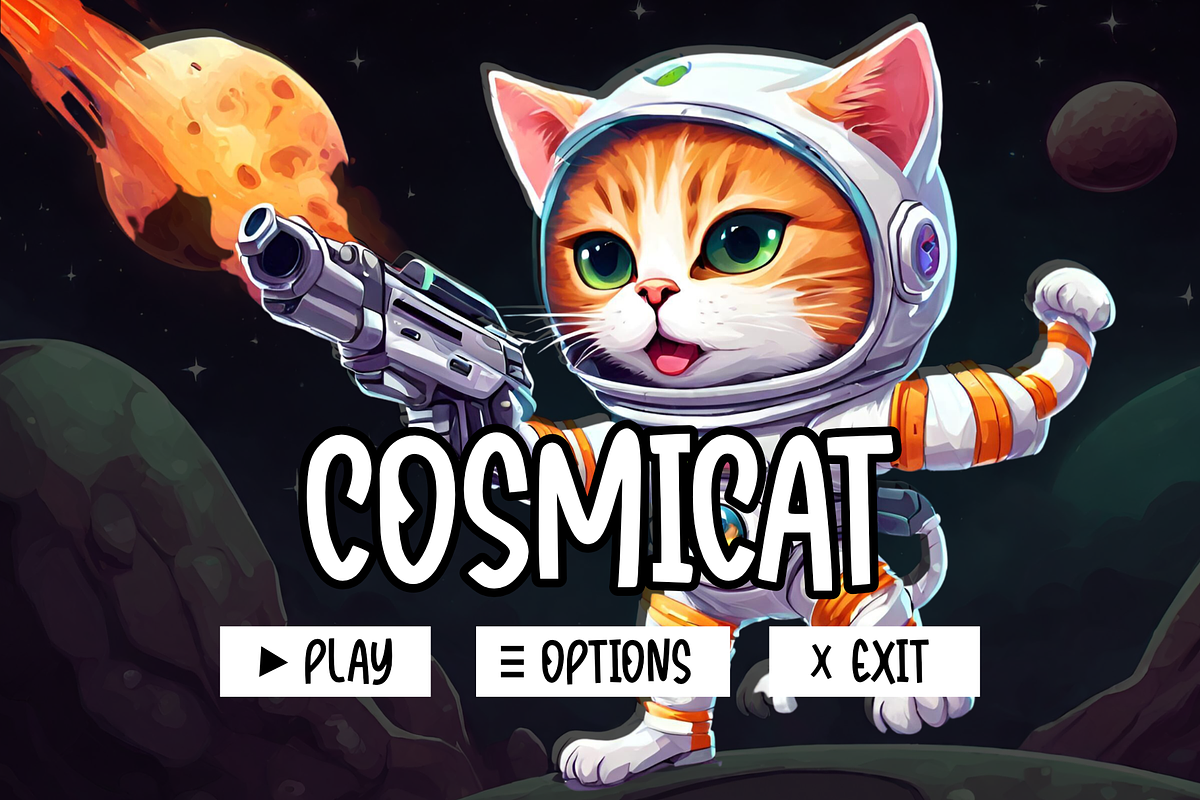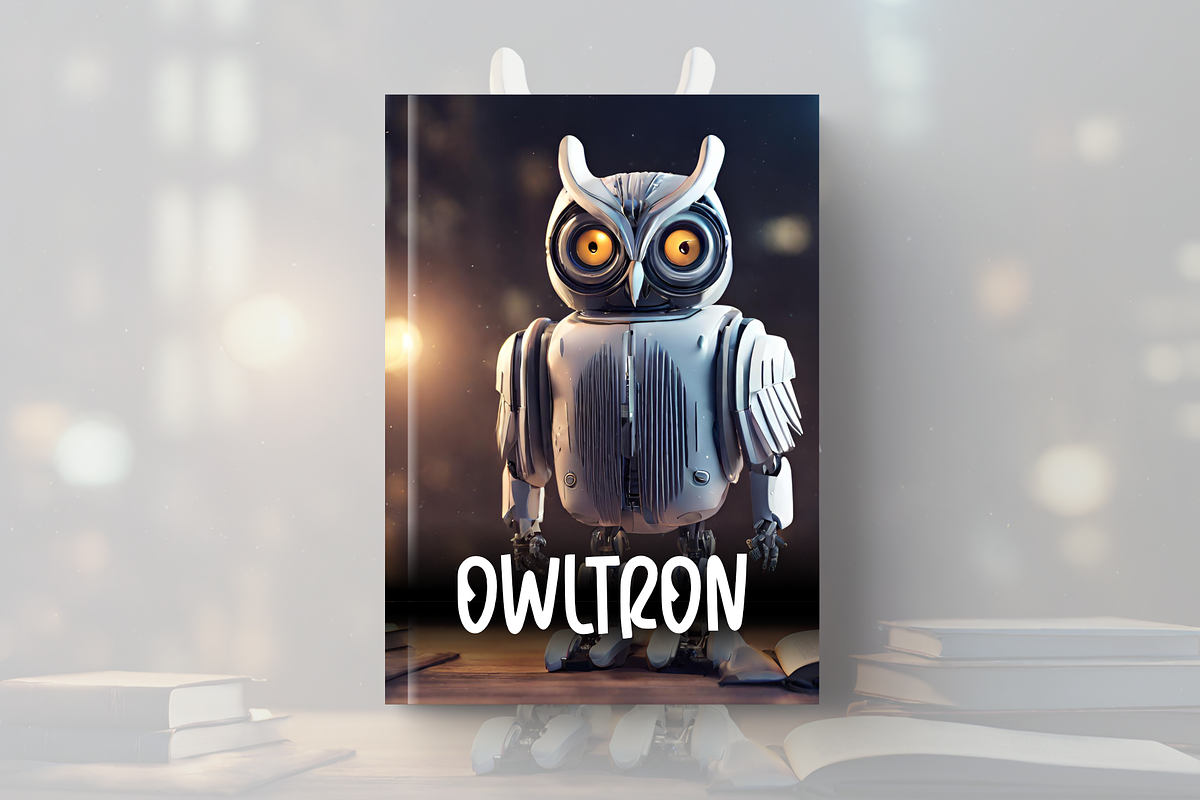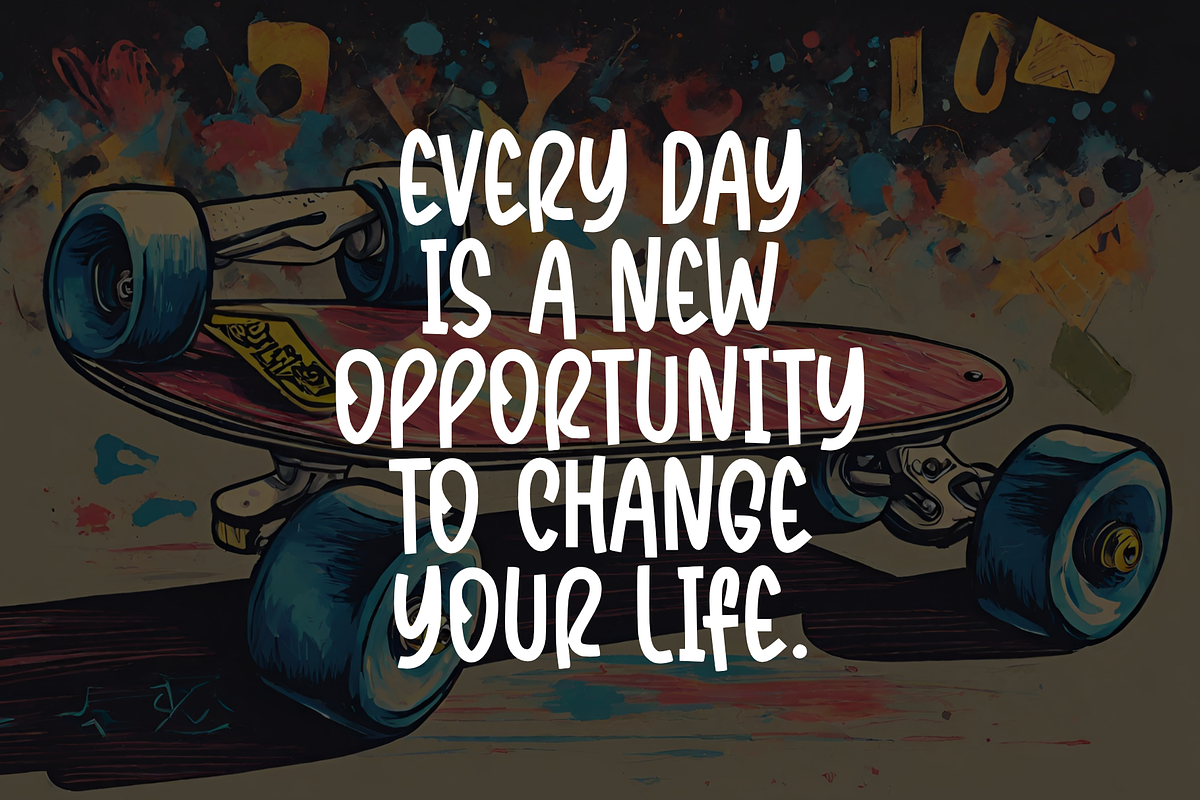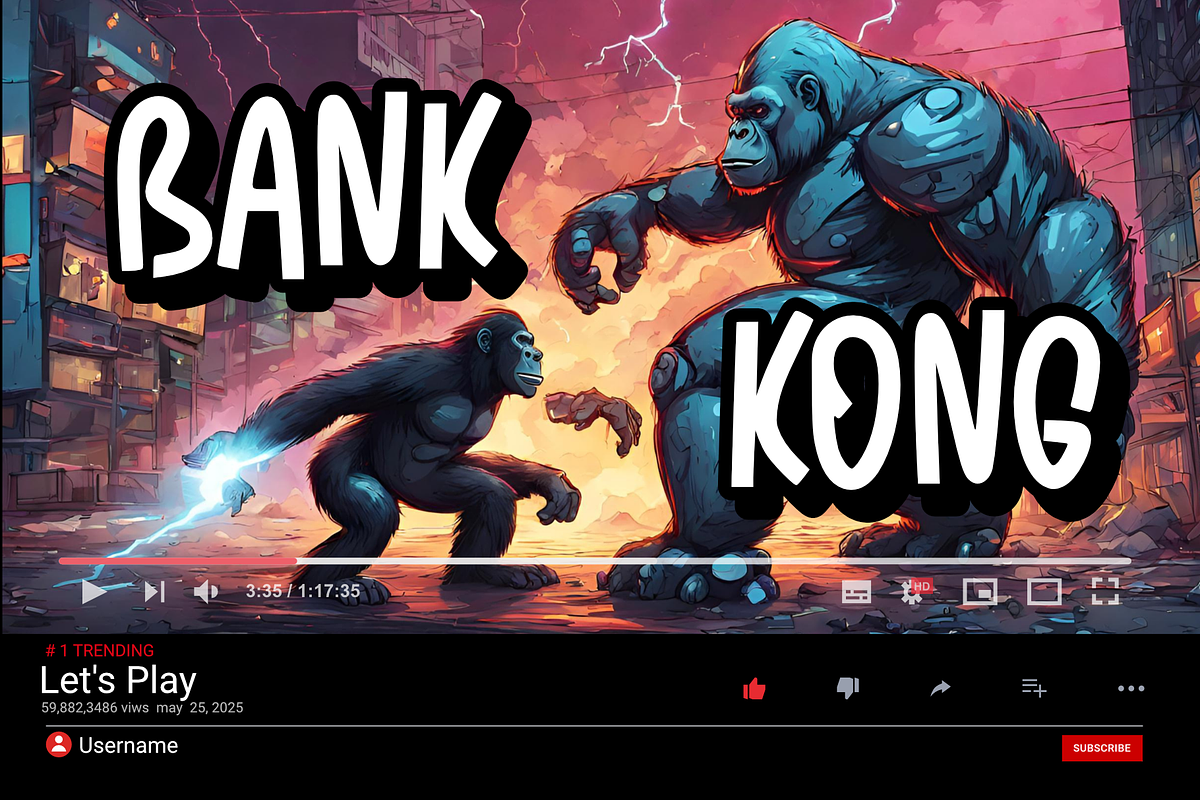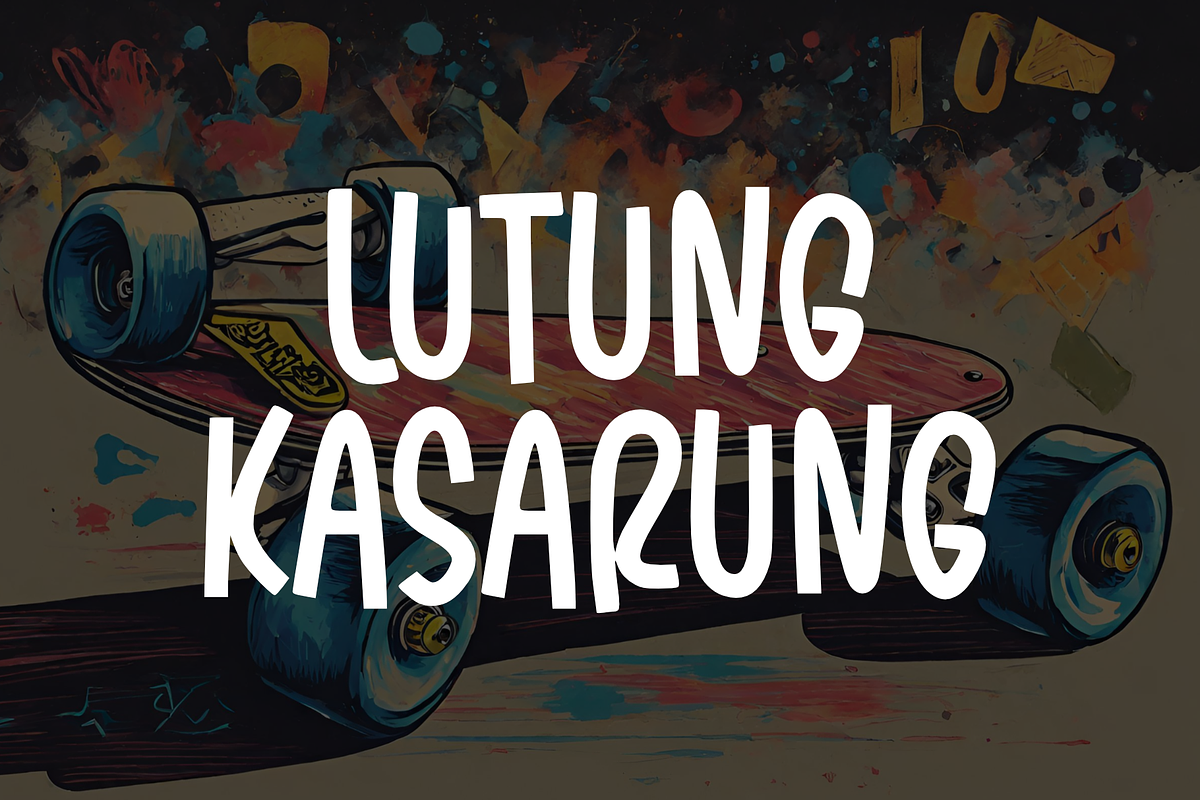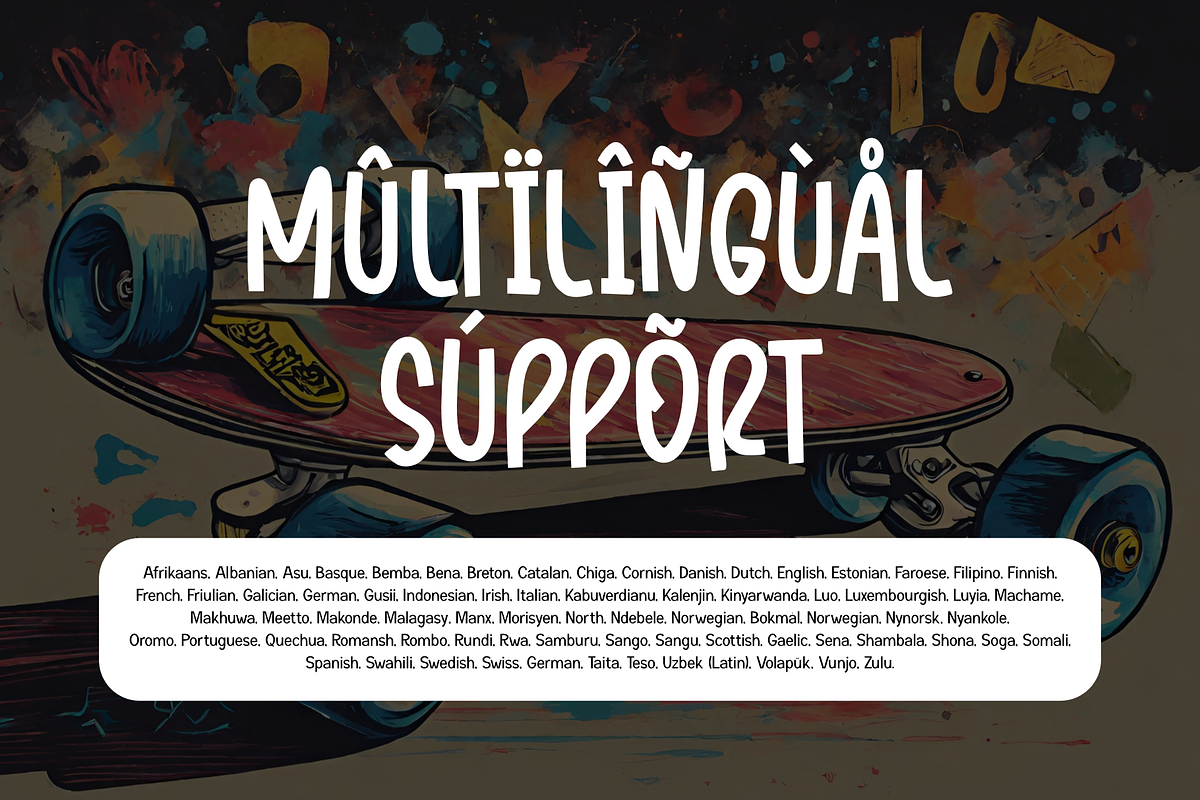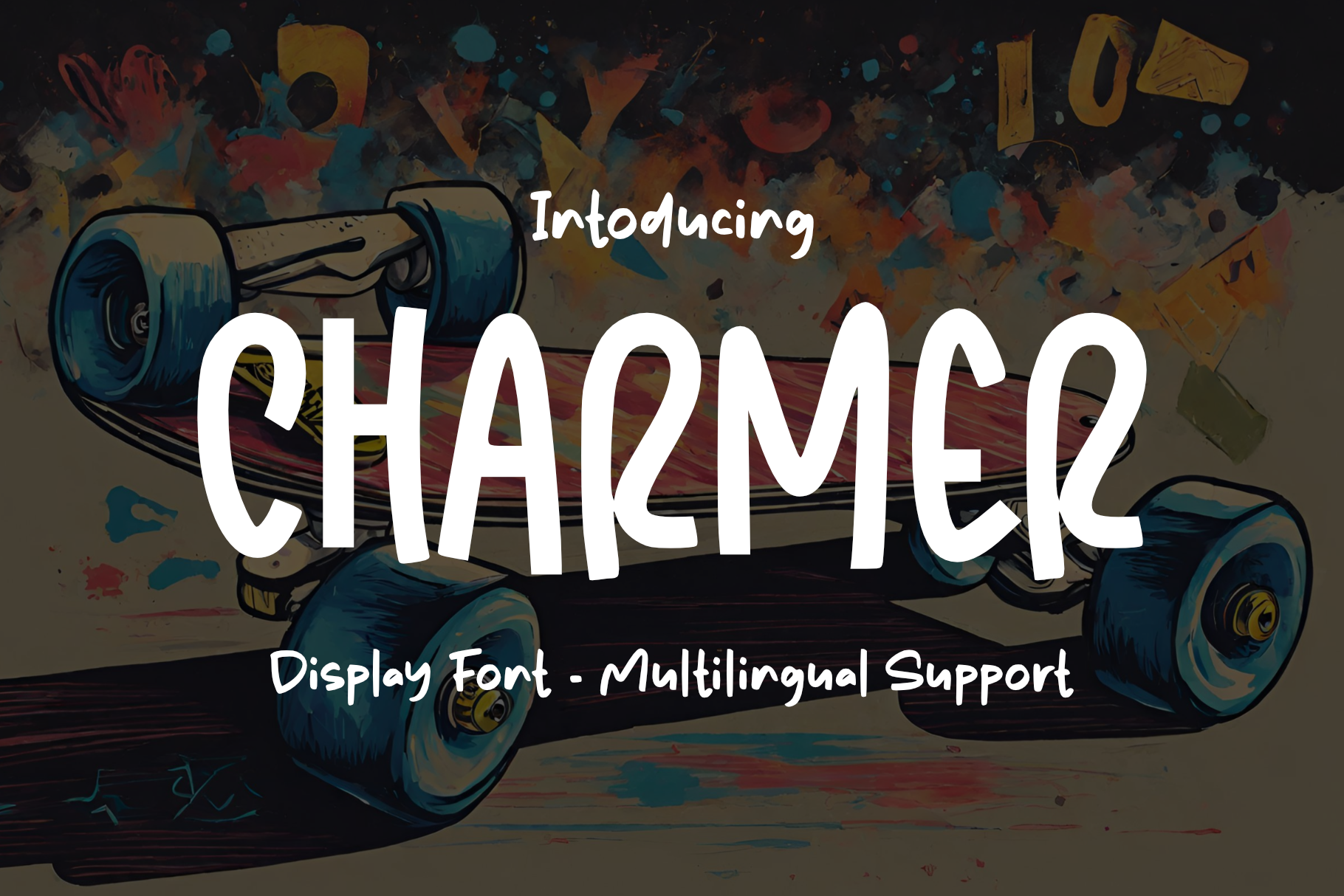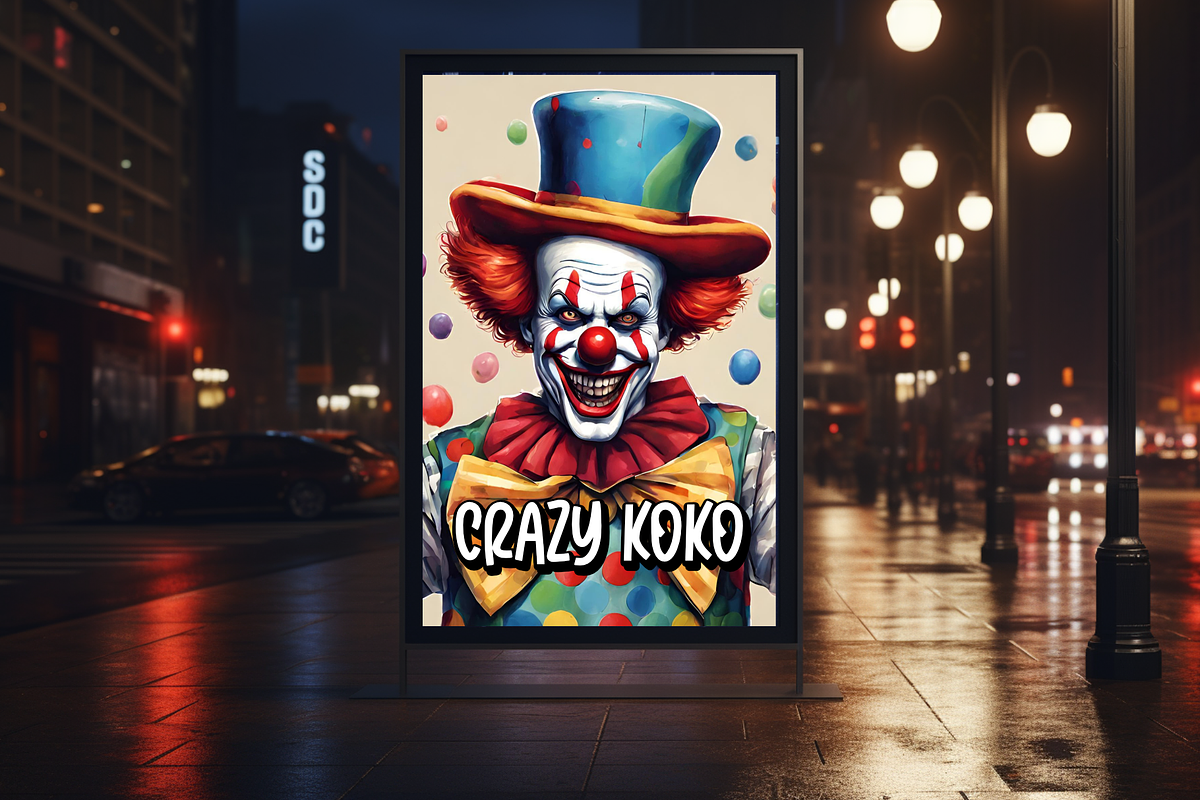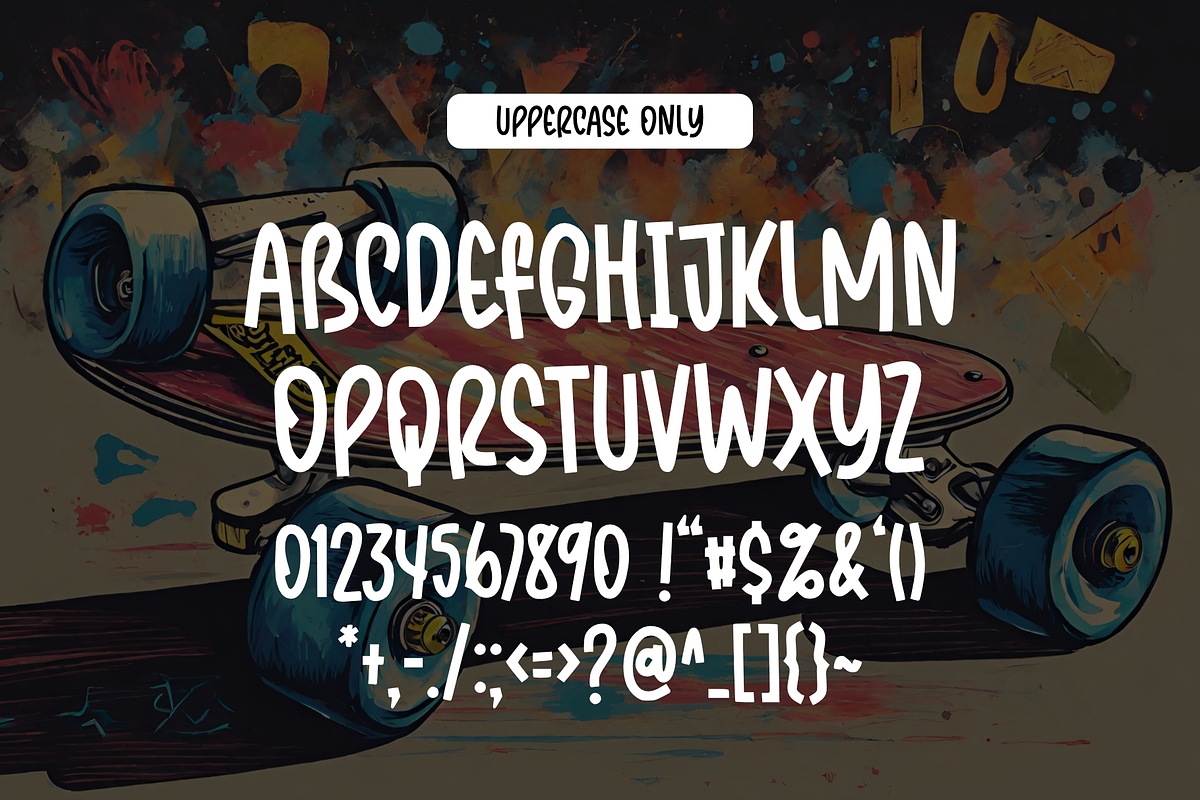
Charmer - Display Font
CHARMER is a casual font that exudes charm and warmth in every design. With expressive uppercase letters, CHARMER provides a strong and attractive impression for film titles, book titles, subtitles, and various other designs. Each letter in CHARMER possesses unique characteristics, combining bold and stylish design elements to create an unforgettable look. With CHARMER, every word will take center stage, captivating the attention of viewers and readers, enhancing the overall impression of your design work.
- Uppercase Only
- Multilingual Accent